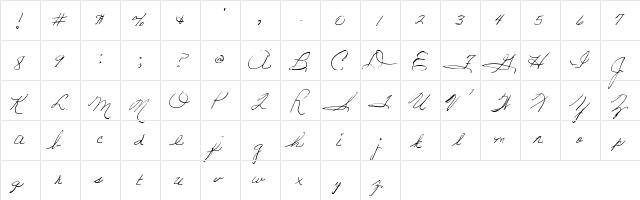
Sandy Script
| Style | Script |
| Foundry | Font Garden |
| Designer | Ellinor Rapp |
Design Context for Sandy Typeface
Sandy brings a calligraphic fluidity to the page — its connecting strokes and expressive curves give it an unmistakably human quality.
Font Pairing: Combine Sandy with a simple geometric sans for maximum contrast — the tension between flowing curves and clean structure is a classic typographic pairing.
Pro Tip: Use Sandy for short runs of text — names, titles, or taglines. Extended body copy in script faces tires the eye quickly.